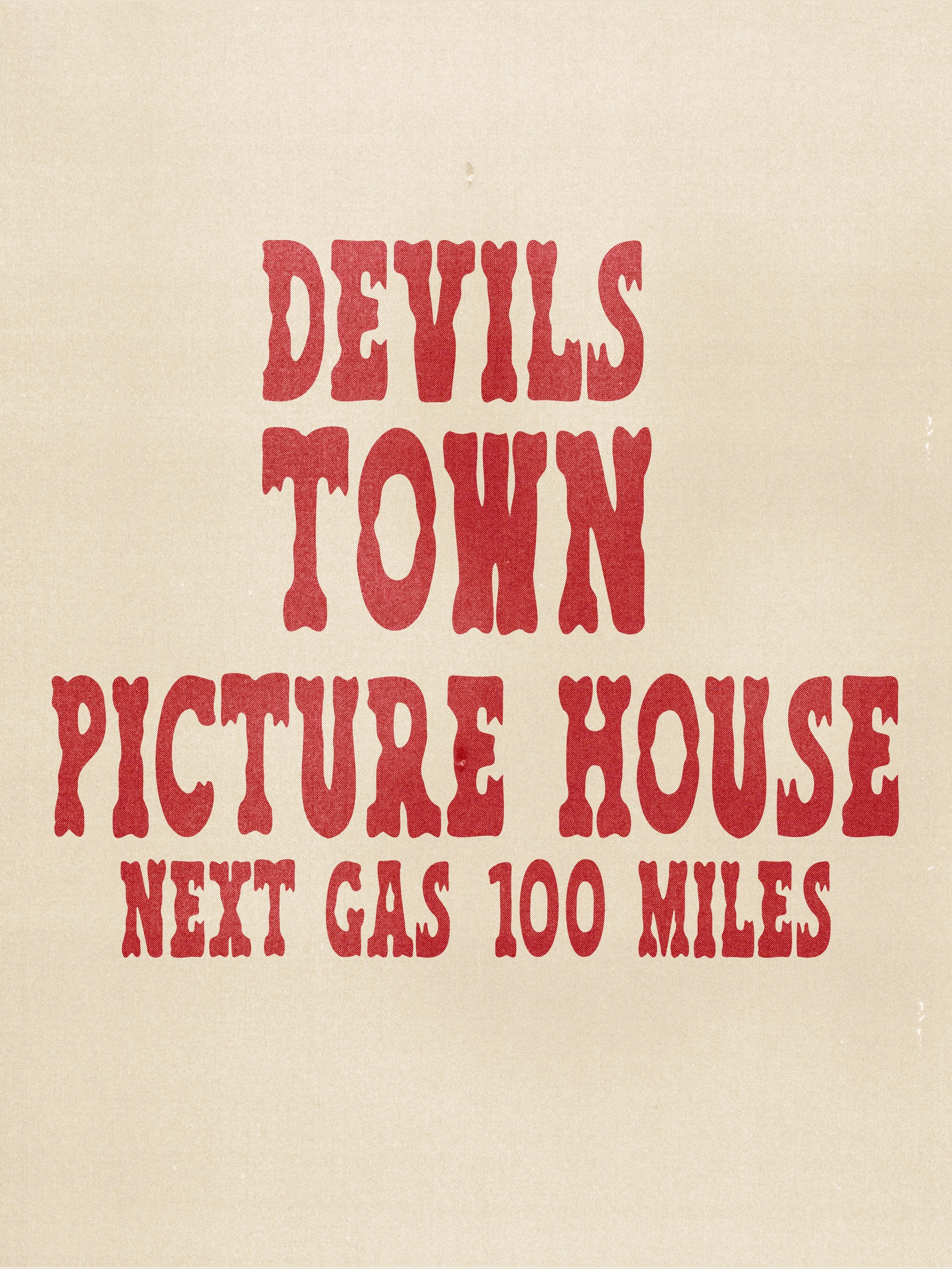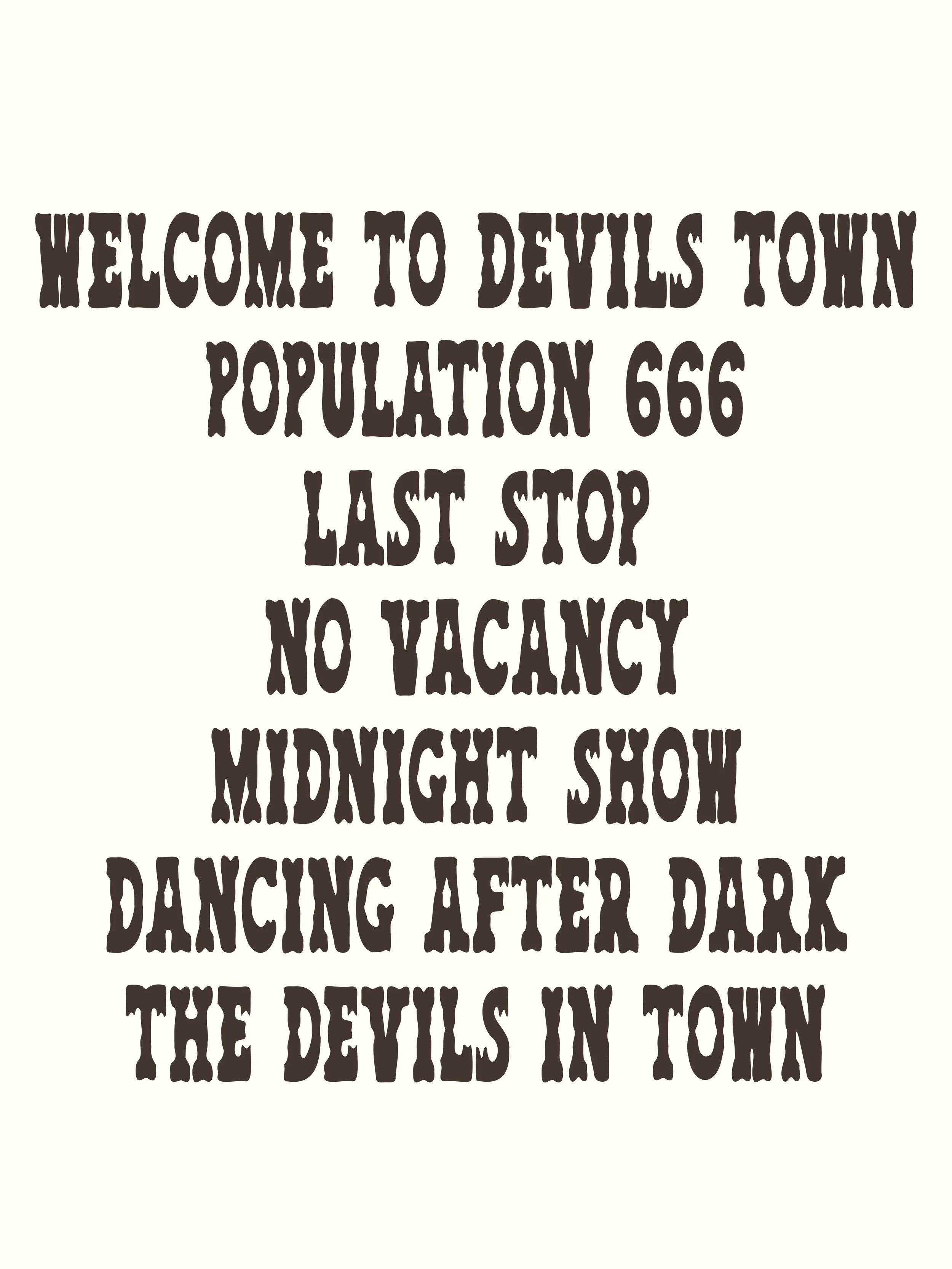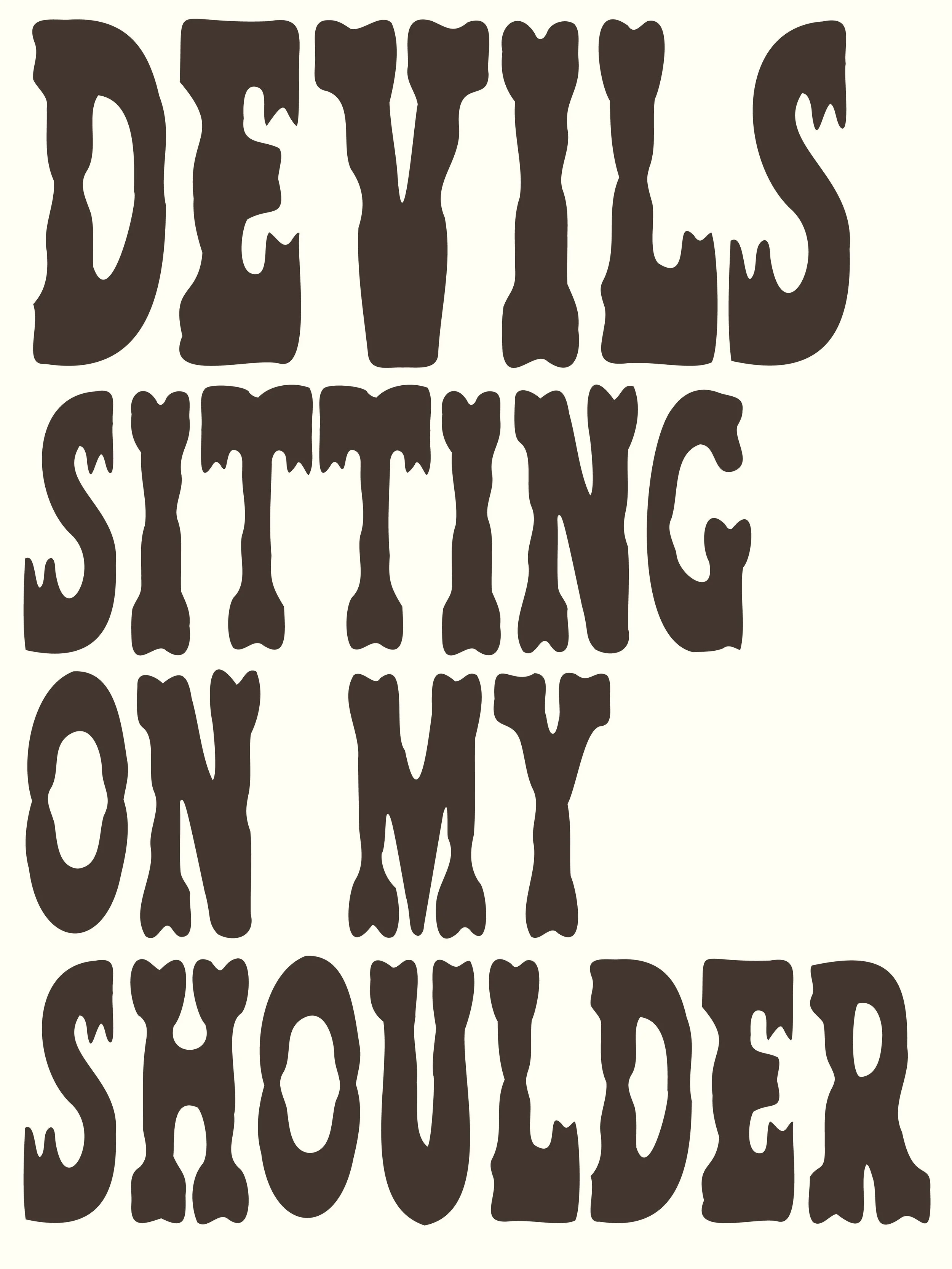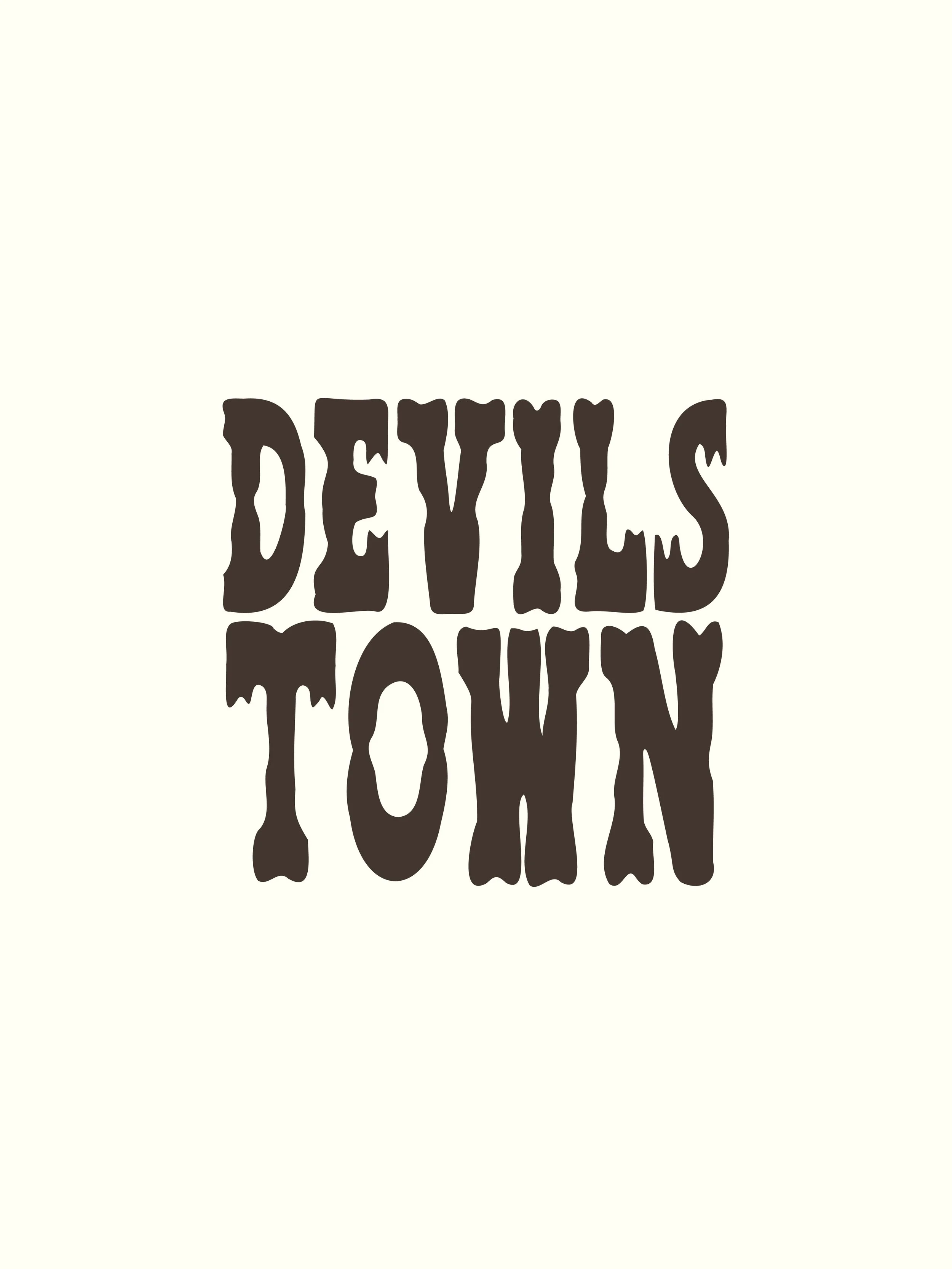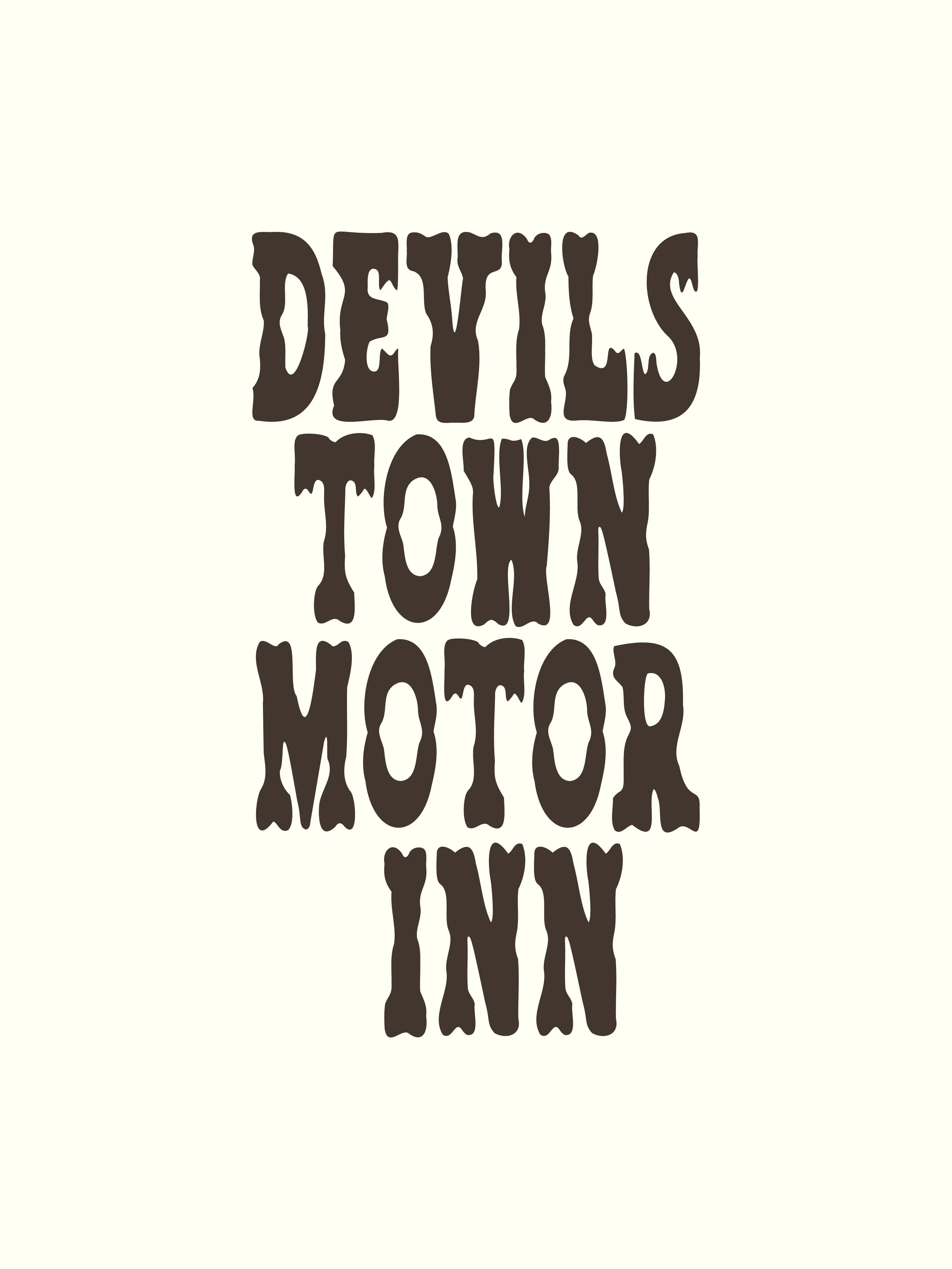
Devils Town | Hand Drawn Vintage Horror Font
DEVILS TOWN is a hand-crafted all-caps display typeface inspired by vintage horror film titles, old block type, ghost towns, haunted houses and strange hand-painted signs. Made from scratch by hand.
Imagine a forgotten town after dark — old signs hanging above empty storefronts, curtains moving in abandoned windows, a mansion somewhere on the hill and the wind howling through the streets. Devil’s Town takes the chunky familiarity of old display lettering and twists it into something a little more peculiar.
The letterforms are deliberately imperfect and full of small unsettling details. The T spreads like a pair of bat wings or a frayed curtain, while the S sits somewhere between dripping blood and a row of strange teeth. The counter of the A resembles a tiny candle flame or a curtain beginning to open, while the exaggerated O feels almost like an open mouth. Across the alphabet, pinched waists, bulbous ends and uneven curves can begin to resemble bones, joints and strange little limbs. Other letters wobble, sag and flare in unexpected places, allowing the forms to shift between playful and slightly sinister depending on how they’re used.
The result sits somewhere between a ghost town, an old mansion on the hill and the title sequence of a forgotten horror film — spooky without becoming a novelty font, and strange enough to work well beyond Halloween.
Designed with Halloween, horror and supernatural projects in mind, Devils Town also works beautifully for music artwork, posters, book covers, merchandise and eccentric vintage-inspired branding.
A–Z uppercase letterforms
Numbers 0–9
Limited punctuation
Please note: Devils Town is an all-caps experimental display typeface intended primarily for headlines, titles, posters, logos and short pieces of expressive typography.
The uneven widths, irregular curves, unusual proportions and strange little details are intentional and form part of the character of the font.
While Devils Town is perfect for Halloween and horror design, it was created as a broader vintage display face rather than a strictly seasonal Halloween font.